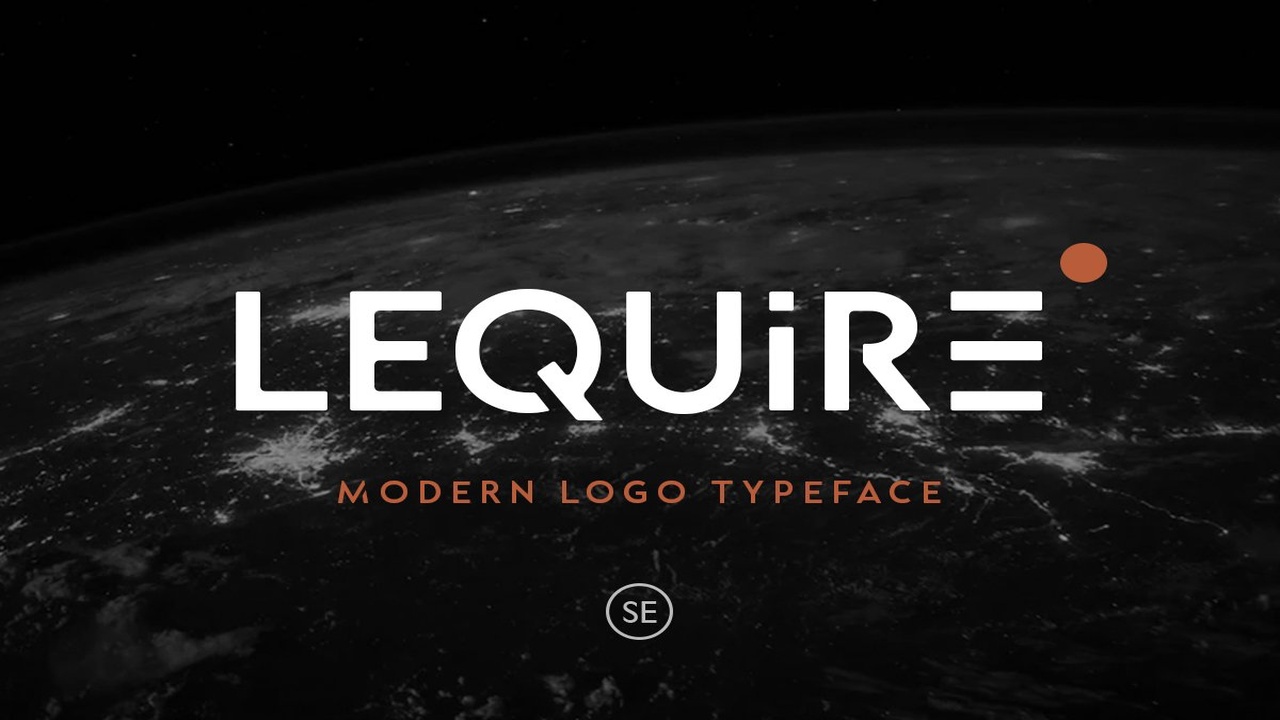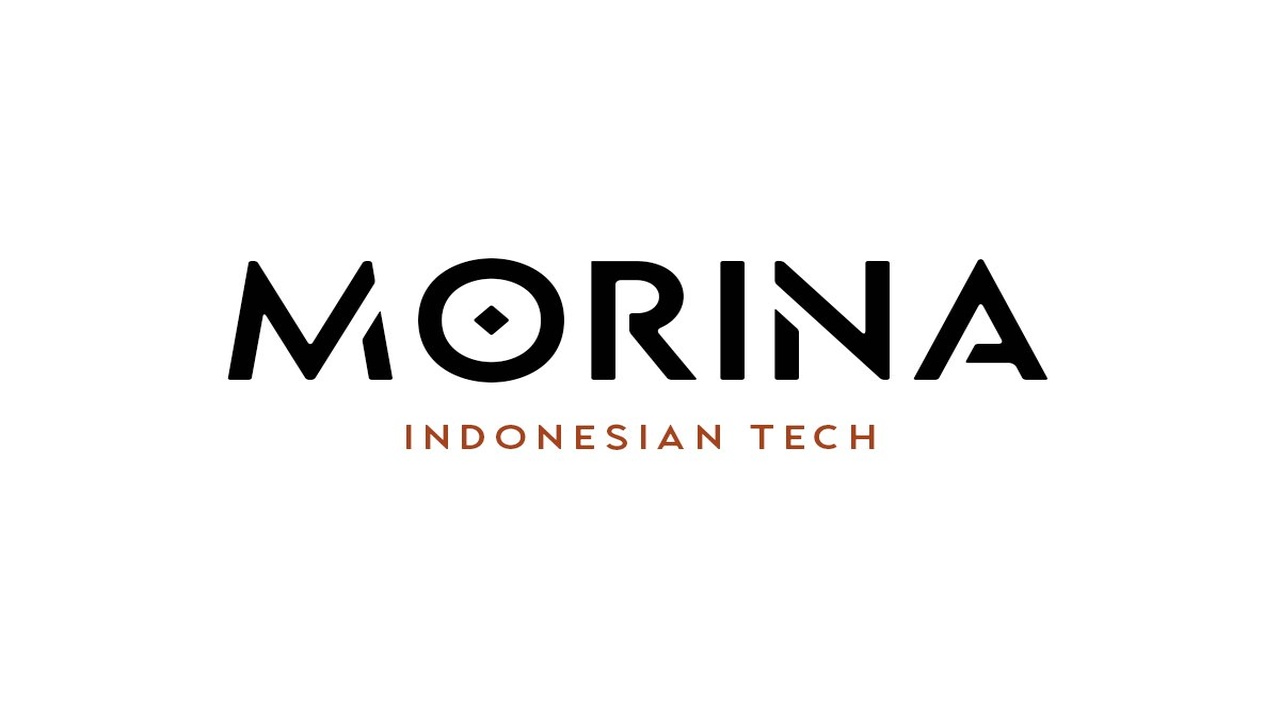
About the Lequire Modern Logo Typeface Font
Introducing, Lequire – Modern logo typeface!Lequire is a sans based font with unique lowercase that will make your design looks hi-tech and modern, You can use this font for any purpose, especially to make logotype, You can mix and match the uppercase and lowercase to make your logo more readable, This font also comes with outline style!Happy Creating!